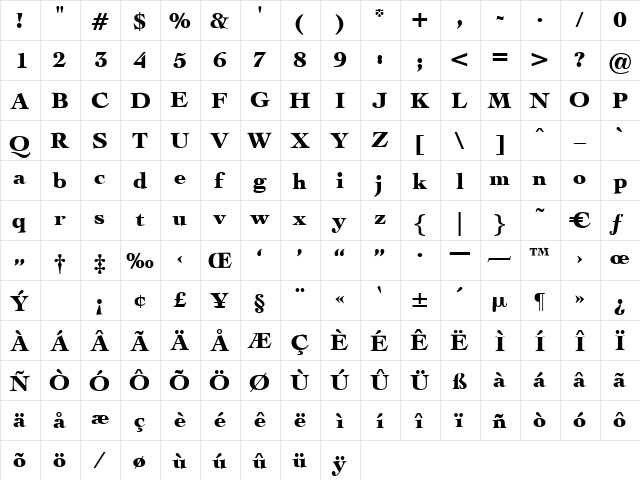
Geronimo Regular Font Preview
Geronimo Regular
Design Context for Geronimo Typeface
Geronimo is a composed and adaptable typeface that performs quietly and consistently across a wide range of design contexts.